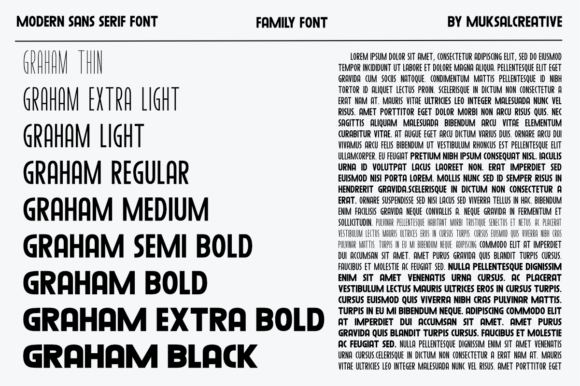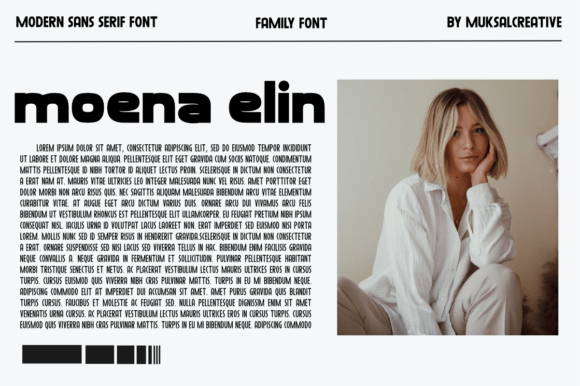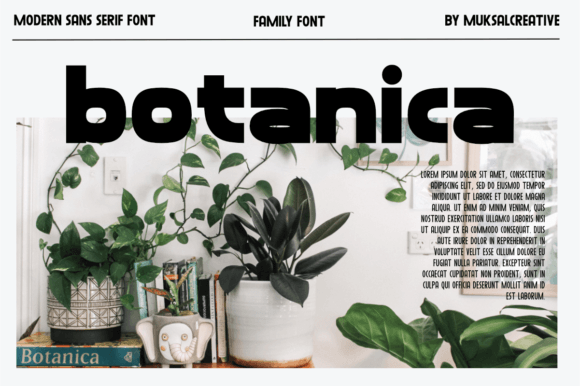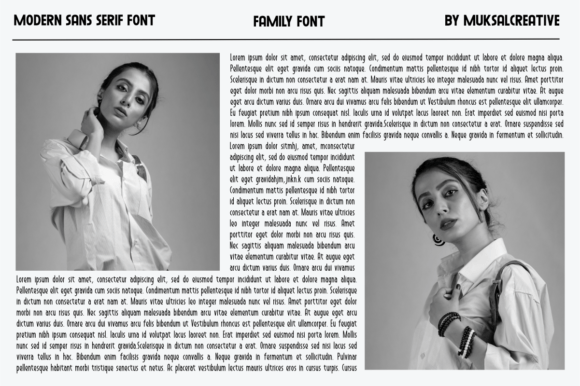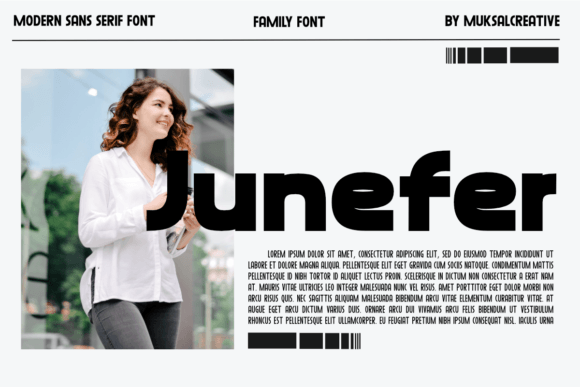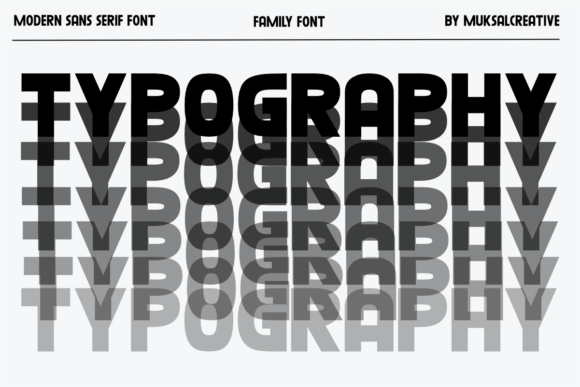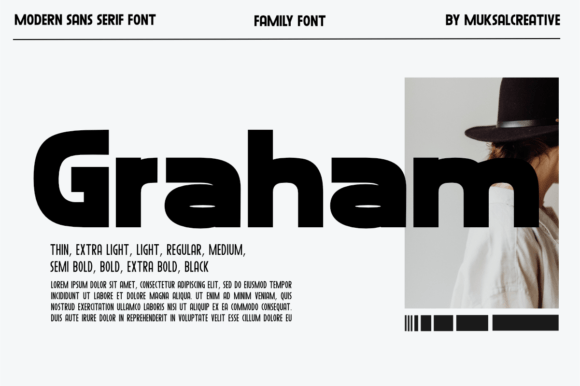
Introducing Graham Font: The Epitome of Modern Sans Serif Elegance
In the realm of typography, a font can make or break the visual identity of a design. For designers and crafters seeking a modern, elegant, and simple sans serif font, Graham Font is an exceptional choice. This versatile font family consists of 9 distinct styles, ranging from the delicate thin to the robust black, offering a unique blend of sophistication and flexibility.
The Essence of Graham Font
Graham Font is a masterpiece of modern sans serif design, crafted with a keen eye for detail and a deep understanding of the needs of contemporary designers. Its clean lines, precise curves, and carefully calibrated proportions make it an ideal choice for a wide range of applications, from fashion logos and branding to posters, websites, and print media.
Key Features of Graham Font
- 9 Different Styles: Graham Font offers a comprehensive range of 9 styles, including Thin, Extra Light, Light, Regular, Medium, Semi Bold, Bold, Extra Bold, and Black. This extensive range allows designers to select the perfect weight to suit their design requirements.
- Elegance and Simplicity: Graham Font embodies the perfect balance of elegance and simplicity, making it suitable for designs that demand a modern and sophisticated look.
- Clean and Bold Appearance: The font’s clean and bold appearance ensures that it leaves a lasting impression, adding a touch of professionalism and contemporaneity to any design.
- Versatility: Graham Font’s versatility makes it an excellent choice for various design projects, from fashion logos and branding to posters, websites, and print media.
Applications of Graham Font
Graham Font’s adaptability and aesthetic appeal make it an excellent choice for a diverse range of design applications, including:
- Fashion Logos: The font’s modern and stylish appearance makes it perfect for fashion logos that require a sleek and sophisticated look.
- Branding: Graham Font’s elegance and simplicity make it an excellent choice for branding projects that demand a professional and contemporary image.
- Posters: The font’s bold and clean appearance ensures that it stands out in poster designs, making it an excellent choice for advertising and promotional materials.
- Websites: Graham Font’s versatility and readability make it an excellent choice for website designs, adding a touch of sophistication and modernity to any online platform.
- Print Media: The font’s clean and bold appearance makes it suitable for various print media applications, including brochures, flyers, and business cards.
Why Choose Graham Font?
With the numerous font options available, designers and crafters may wonder why Graham Font stands out from the rest. Here are a few compelling reasons:
- Unique and Sophisticated: Graham Font’s modern sans serif design and extensive range of styles make it a unique and sophisticated choice for designers seeking a font that can elevate their designs.
- High-Quality Typography: The font’s precise curves and carefully calibrated proportions ensure that it provides high-quality typography, making it perfect for designs that demand attention to detail.
- Time-Saving: With Graham Font’s extensive range of styles, designers can save time and effort by having a comprehensive font family at their disposal, eliminating the need to search for multiple fonts.
| Font Name | Graham Font |
| Author | Muksal Creative |
In conclusion, Graham Font is an exceptional modern sans serif font that offers elegance, simplicity, and versatility in every style. Its extensive range of 9 styles, clean and bold appearance, and adaptability make it an excellent choice for a wide range of design applications. Whether you’re a designer or crafter seeking a font that can elevate your designs, Graham Font is an outstanding option that is sure to impress.